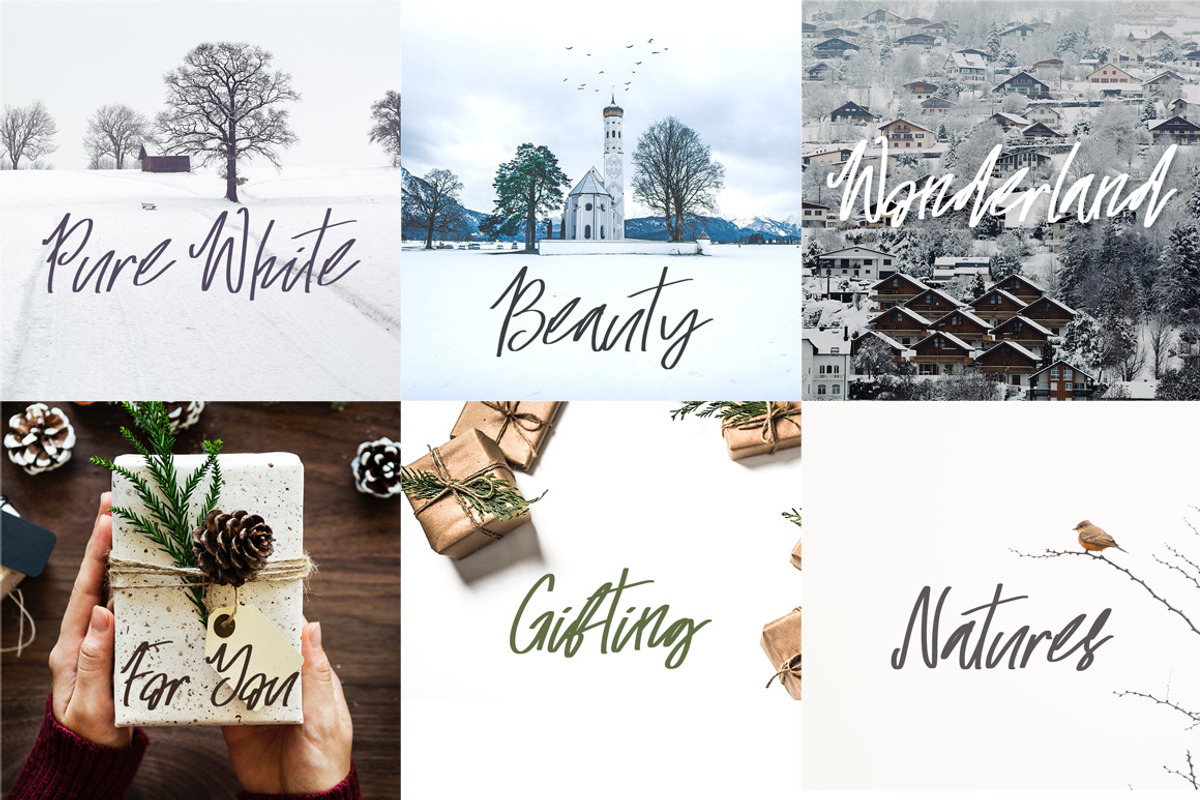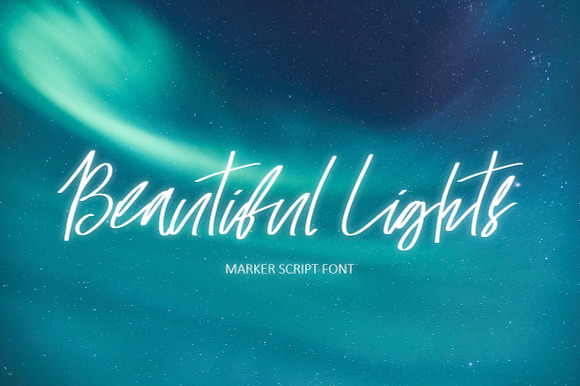
Beautiful Lights Script Font
Introducing Beautiful Lights marker style script font.
This font comes in regular and bold versions.
Why Beautiful Lights Script Font is worth a look
Beautiful Lights Script Font by Creativeqube Design fits naturally into Branding, posters, packaging, typography.